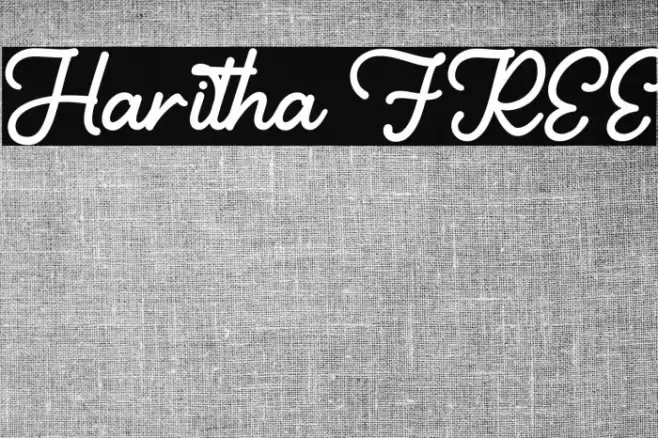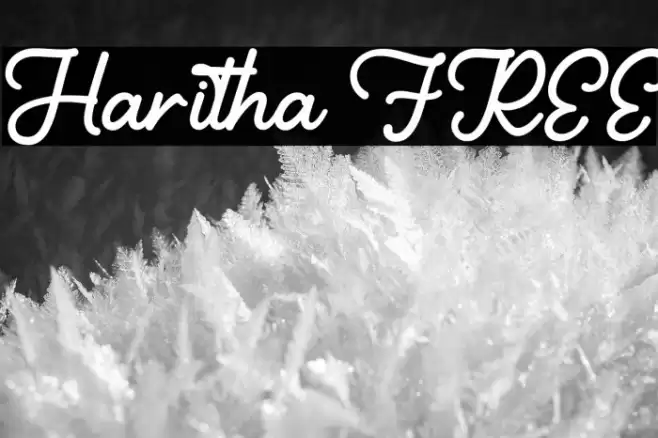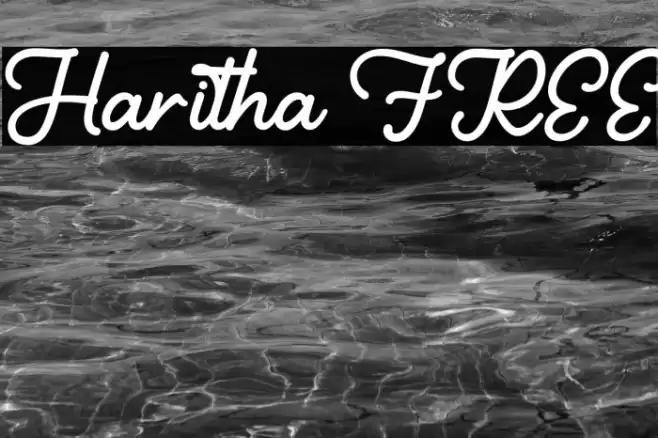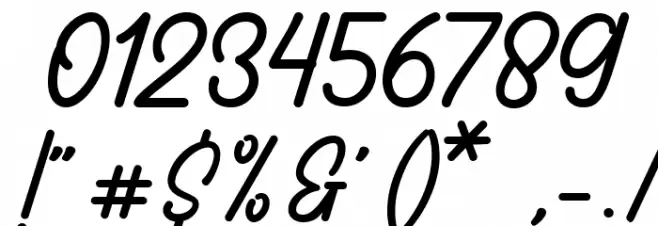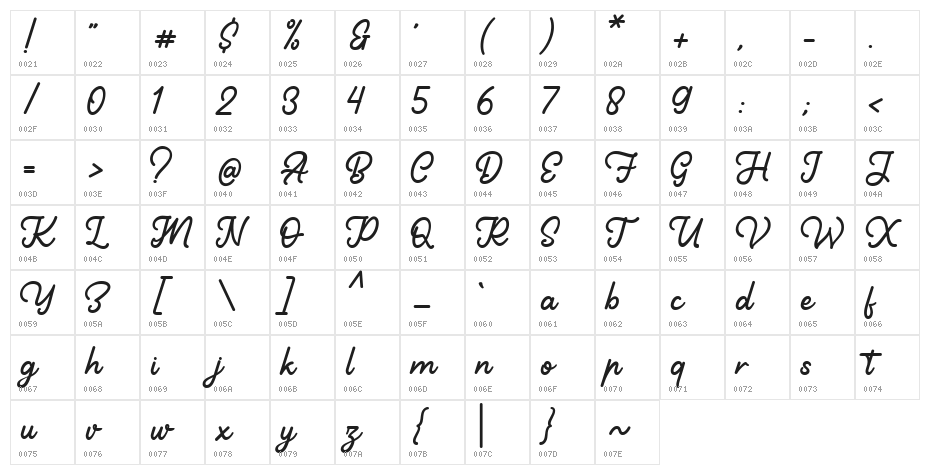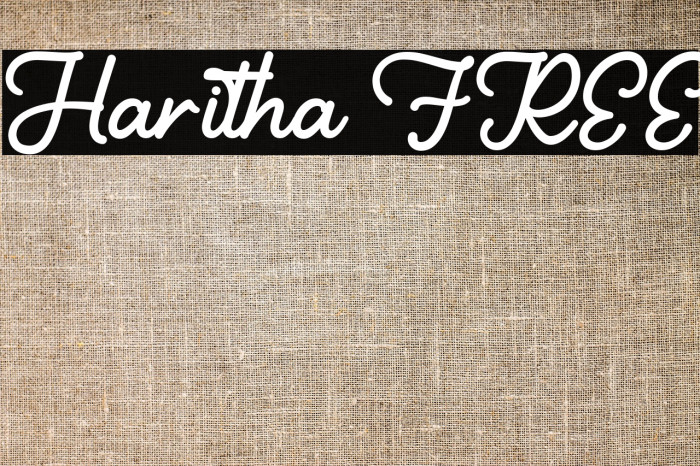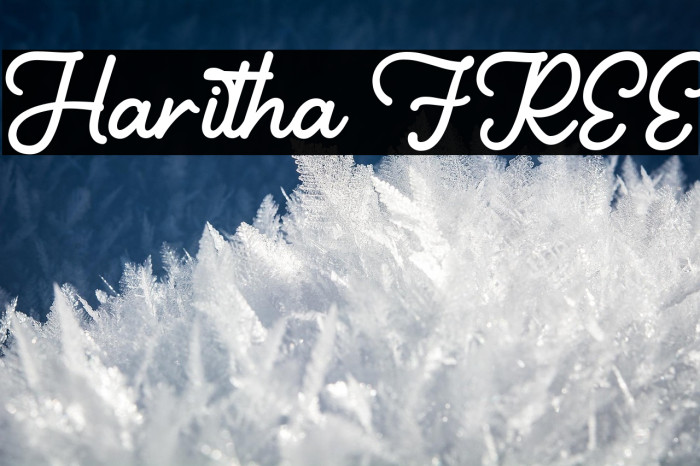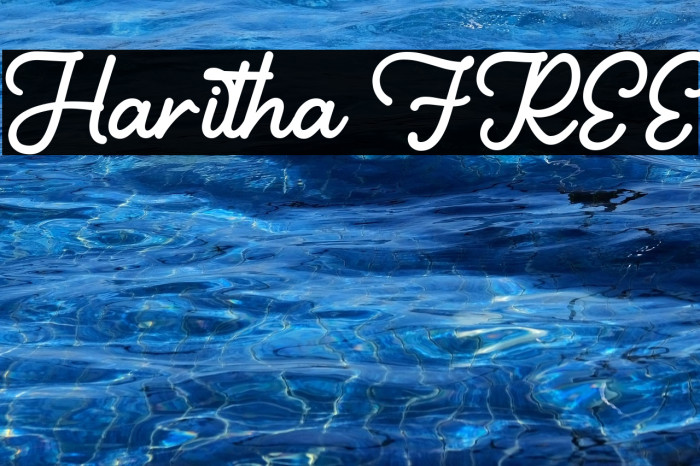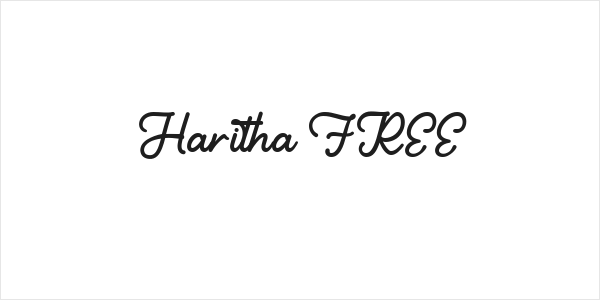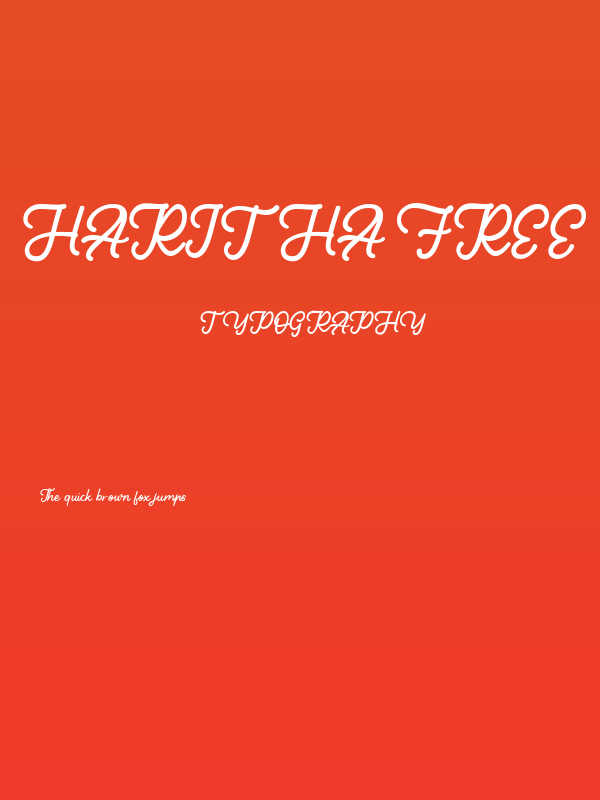
Haritha FREE Font
Haritha FREE Description
This font features a flowing, cursive style that combines elegance with readability. The uppercase letters are ornate and connected, giving a sense of continuity and fluidity. The lowercase letters maintain a consistent slant and are designed with smooth curves, enhancing the script-like appearance. Numbers and special characters are crafted to match the overall aesthetic, with a playful yet sophisticated touch. The font's design is reminiscent of traditional calligraphy, making it suitable for formal and creative applications.
A flowing cursive font with elegant, connected letters and a calligraphic style from Regular fonts.
- Proposed Projects: Ideal for wedding invitations, greeting cards, branding, and logo design.
- Overall Style: Classic
- Use Case: Logos, Invitations, Decorative text